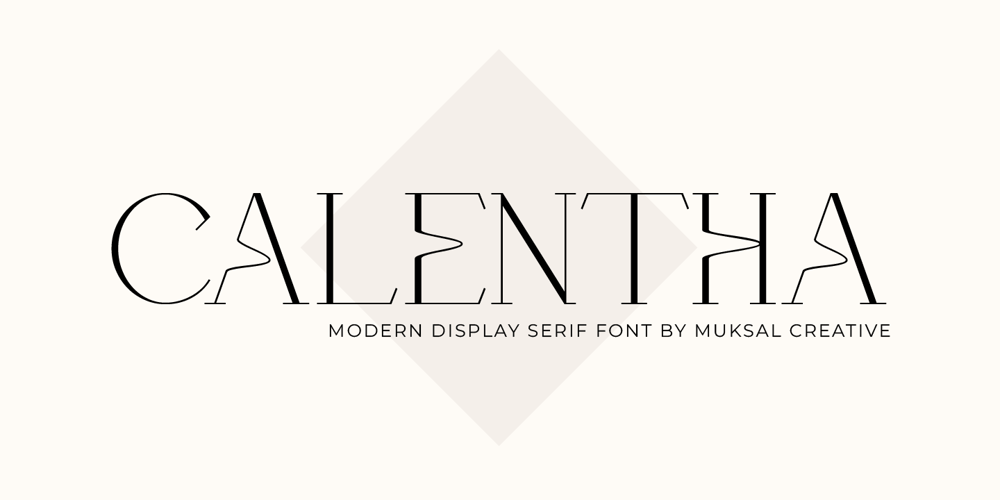
Calentha
Calentha font
Calentha Font Family was designed by Muksalmina and published by Muksal Creatives. Calentha contains 1 styles and family package options. Calentha is a modern-style font that combines serif elements with a contemporary touch. With its clean and elegant design, this font offers the main style of regular. Each letter in the Calentha font is meticulously crafted to convey a professional and modern impression in any design. The sophistication of this serif font makes it suitable for various design projects, including modern-themed branding logos. With its clarity and readability, Calentha is the perfect choice for enhancing the appearance and impact of any design.